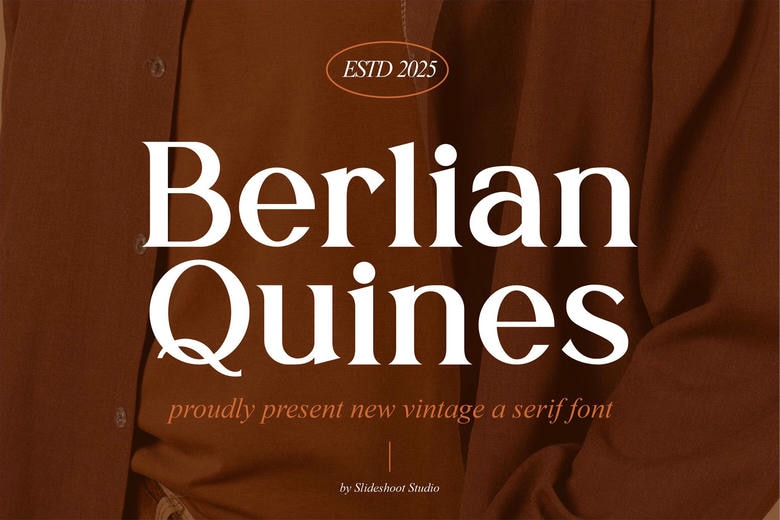
Berlian Quines Font
Berlian Quines is a refined vintage serif designed for those who appreciate classic elegance with a modern twist. Featuring graceful curves, high contrast strokes, and sophisticated serifs, this font is ideal for luxury branding, wedding invitations, fashion editorials, and premium product packaging. Elevate your designs with Berlian Quines’ timeless charm.
Berlian Quines Serif Font